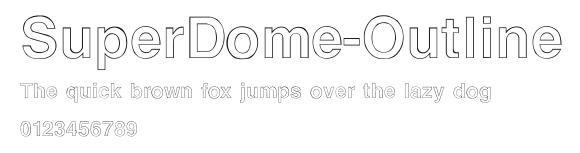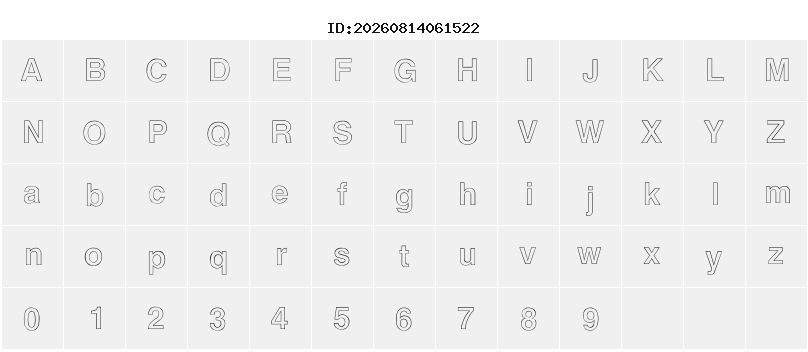
About SuperDome-Outline.ttf
SuperDome-Outline.ttf is a modern, elegant sans-serif font designed for ultimate readability and visual harmony. Perfect for branding, headlines, web design, and print materials.